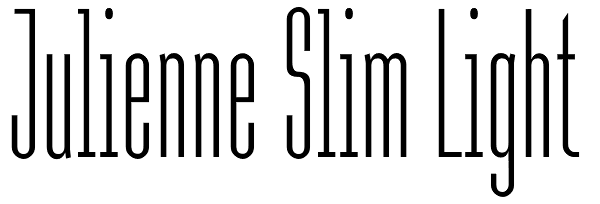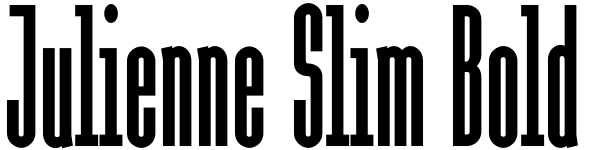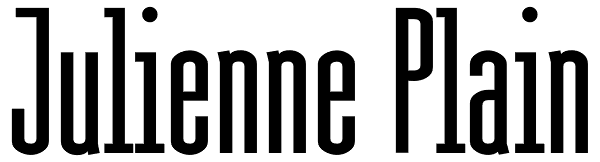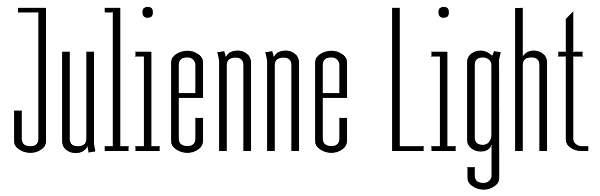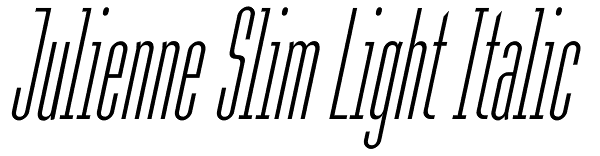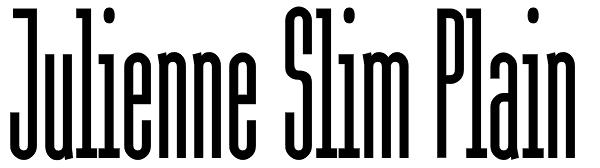
Julienne
Cooks call thinly cut - like matchsticks - vegetables "Julienne". I found that was a fitting name for this very narrow typeface. Julienne Slim is the extreme cut of the two. Personally I do not use narrow typefaces very often, but from time to time...